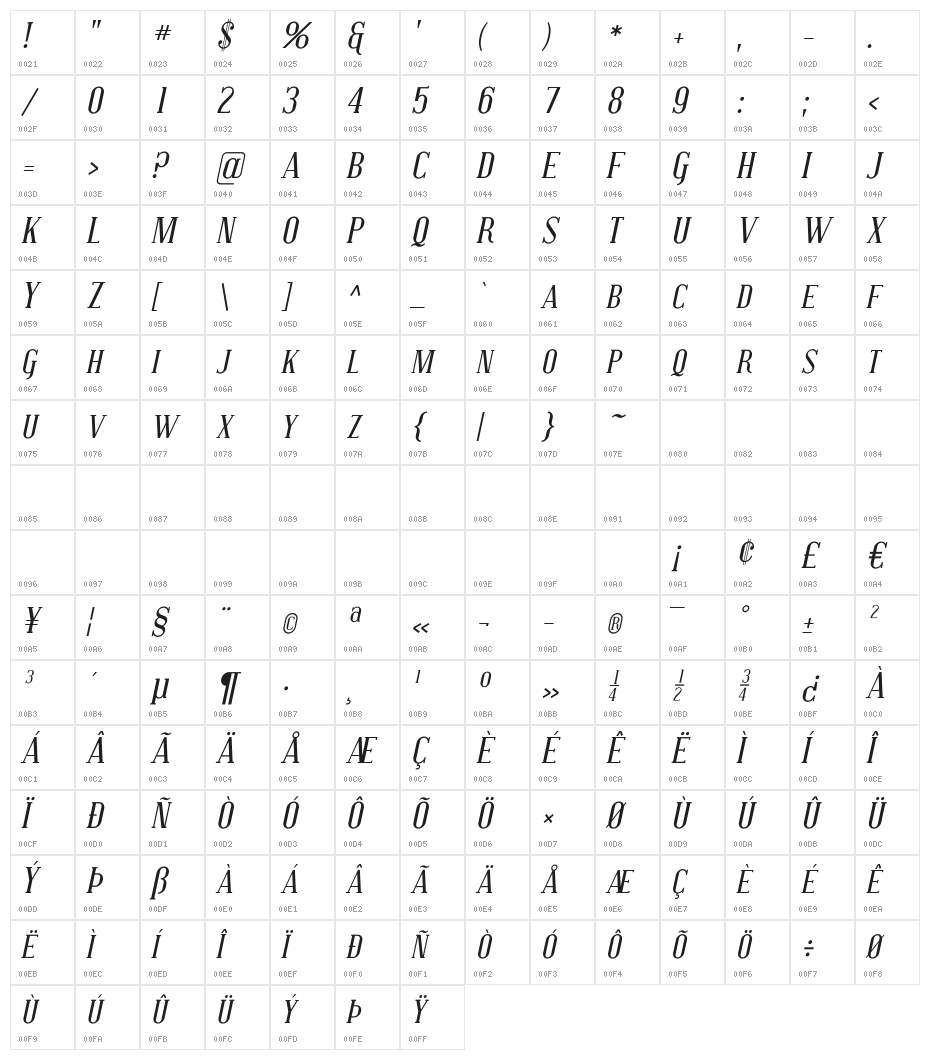
Covington SC Italic Font
Covington SC Italic Description
This font features a sophisticated and elegant italic style with a slight slant, giving it a dynamic and fluid appearance. The characters are well-defined with a moderate contrast between thick and thin strokes, enhancing readability while maintaining a stylish look. The serifs are sharp and pronounced, adding a classic touch to the overall design. The uppercase letters are tall and commanding, while the lowercase letters maintain a consistent flow, making it suitable for both formal and creative applications. The numerals are clear and distinct, ensuring legibility in various contexts. Special characters are thoughtfully designed to complement the overall aesthetic.